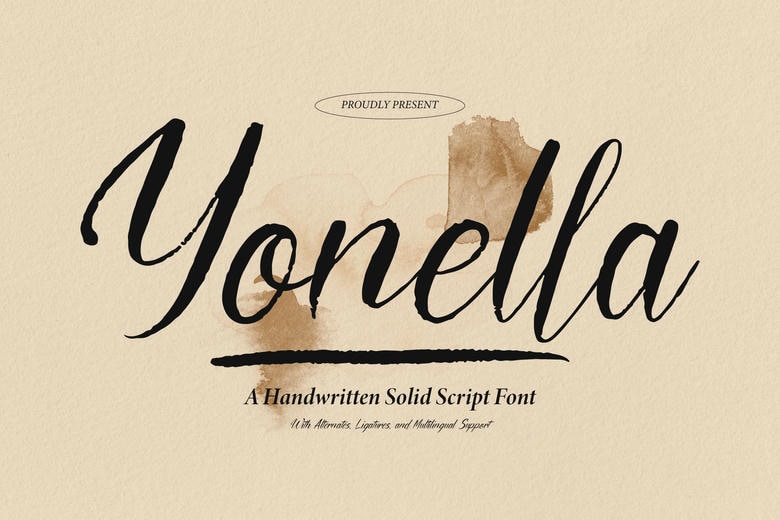
Yonella Font
Yonella Font is actually a handwritten script, but has the weight of a more bold and elegant typeface. It has a natural, immediate, and immediate look ideal for wedding cards, logos, branding, greeting cards, etc. for an artistic twist. Yonella comes with alternates, ligatures and with multilingual support Yonella is versatility and beauty in your hands.
Yonella Handwritten Script Font